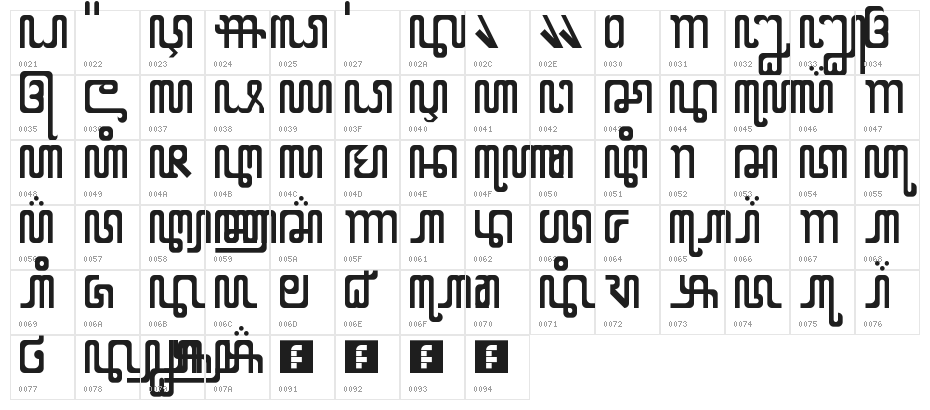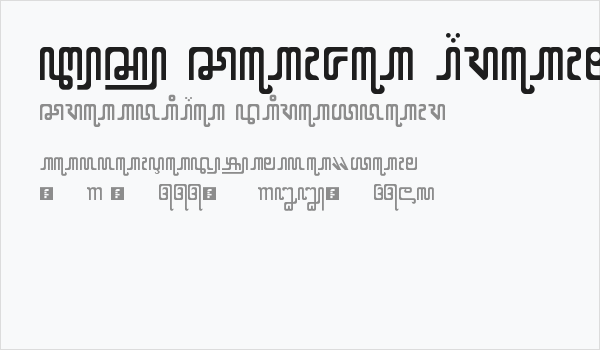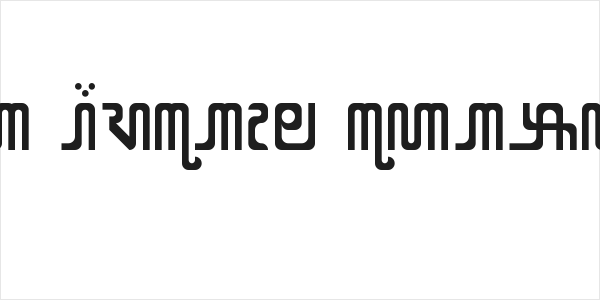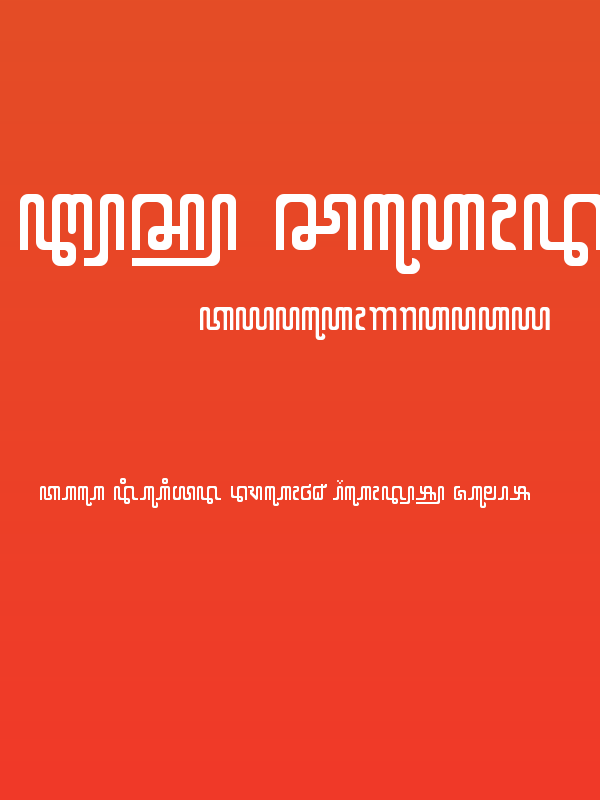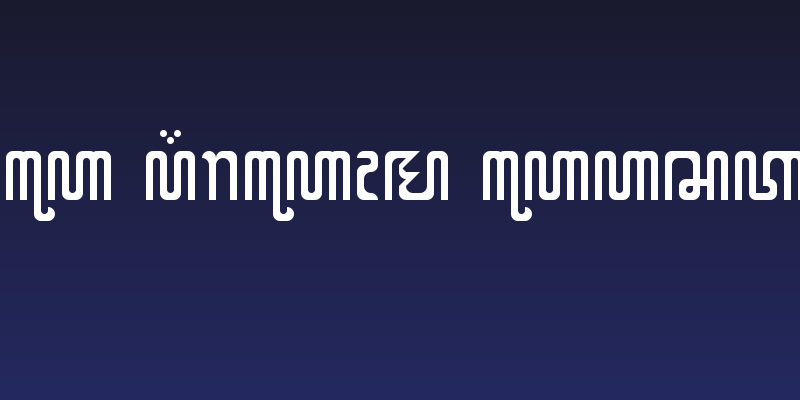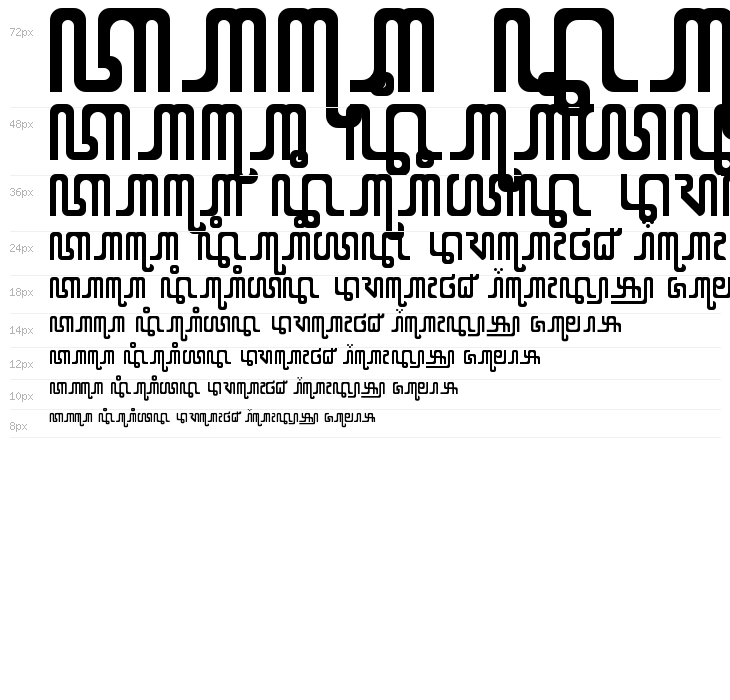
X Code from East Regular Font
X Code from East Regular Description
This font features a unique and modern design with a distinct geometric structure. The characters are composed of bold, rounded lines that create a futuristic and tech-inspired appearance. The uniformity in stroke width gives it a clean and cohesive look, while the slight curvature at the ends of the strokes adds a touch of softness. The font maintains a consistent height across all characters, enhancing readability. Its innovative style makes it suitable for creative and digital projects, where a contemporary and edgy aesthetic is desired.
| Overall Style | Futuristic, Tech-inspired |
| Use Case | Headlines, Logos, Digital interfaces |
| Proposed Projects | Ideal for digital interfaces, tech branding, futuristic posters, and creative media projects. |